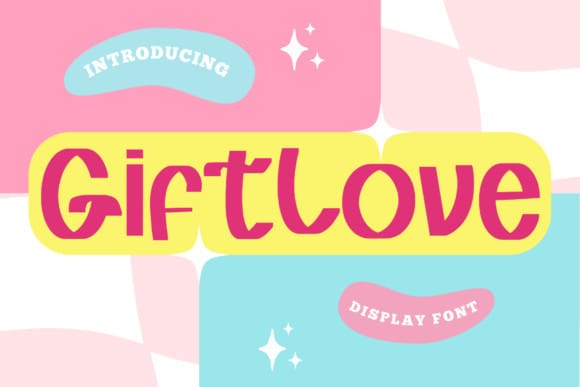
Gift Love Font
Gift Love Font is a fun, playful, and friendly display font. Whatever the topic, this font will be a wonderful asset to your font library, as it has the potential to enhance any creation.